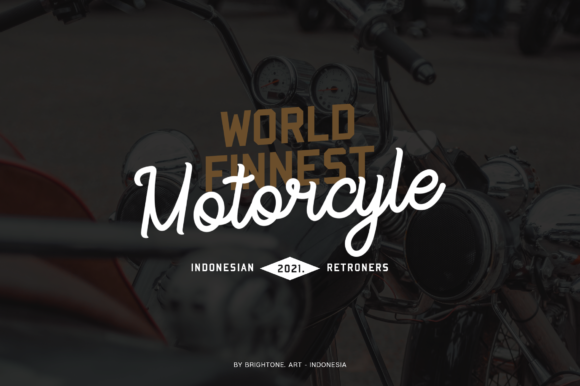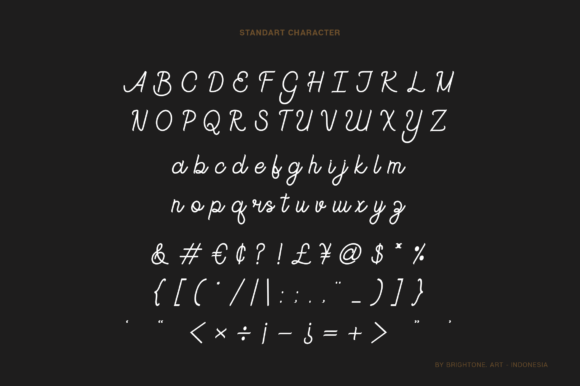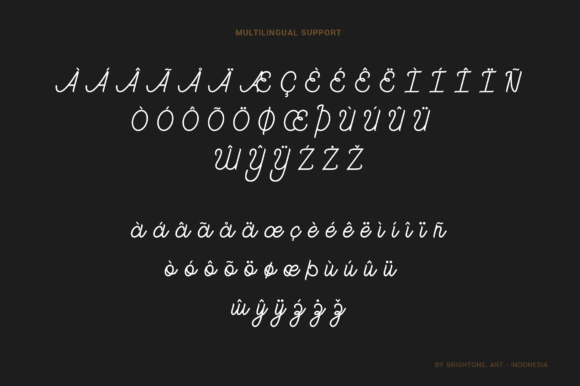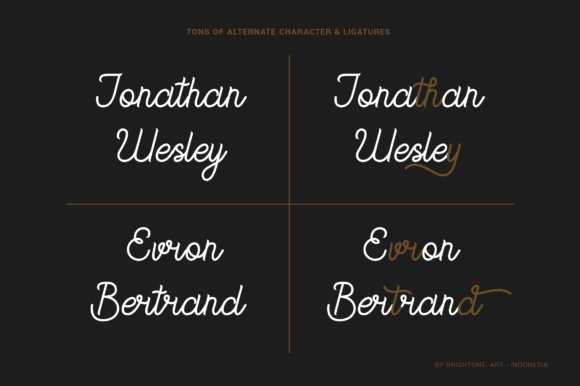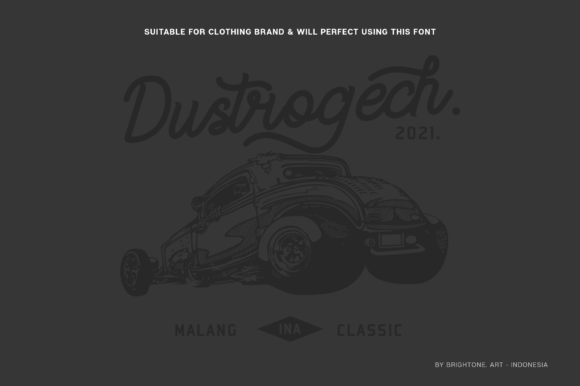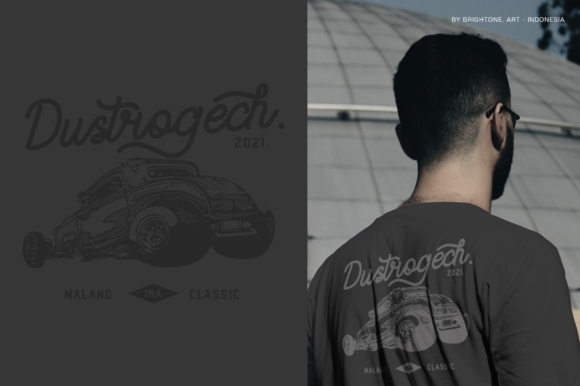
Introduction to Smooth Bothniar Font
Smooth Bothniar is a classic script font featuring elegant characters that seem to dance along the baseline.
Use this natural typeface for your logo lettering, shirt design, custom garage logo, magazine, sticker, branding, etc .
Smooth Bothniar Font offers exceptional quality and versatility, making it a valuable addition to your design toolkit. Whether you’re creating for personal projects or commercial use, Smooth Bothniar Font delivers professional results.